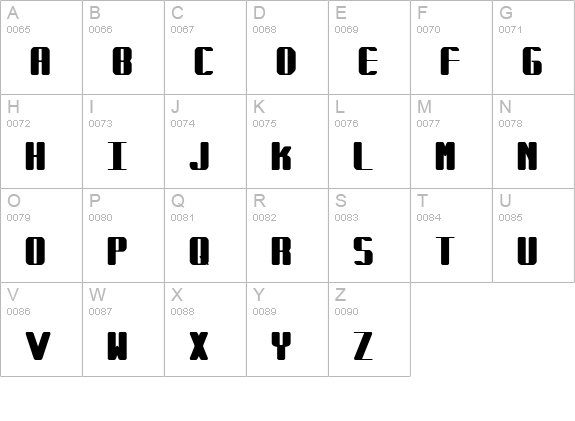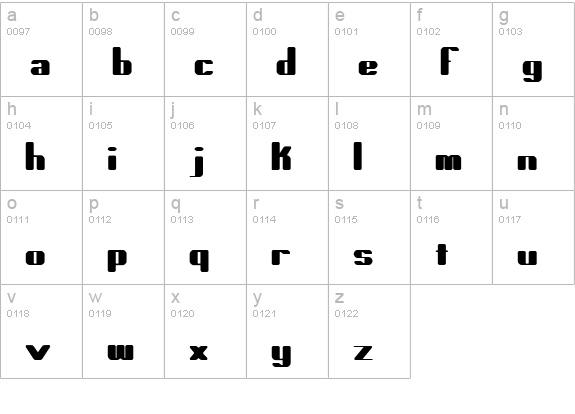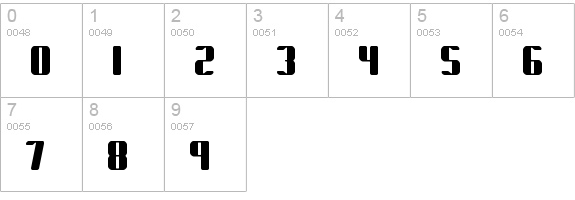
Forcible BRK Font Details
Forcible BRK font is a striking and powerful typeface that exudes confidence and impact. With its bold, angular design and strong lines, this font commands attention and makes a bold statement. Perfect for headlines, logos, and other design projects that require a strong visual presence, Forcible BRK font is sure to leave a lasting impression. What's even better is that this dynamic font is available for free download at FontsMarket.com. Whether you're a designer looking to add a powerful touch to your projects or simply a typography enthusiast seeking a bold new font to play with, Forcible BRK font is a fantastic choice that won't cost you a penny. Download it today and unleash the full force of this impressive typeface in your designs.